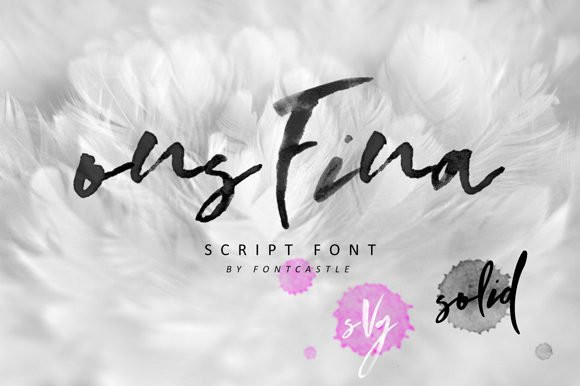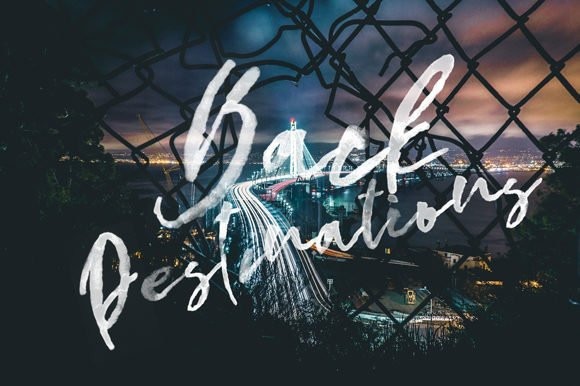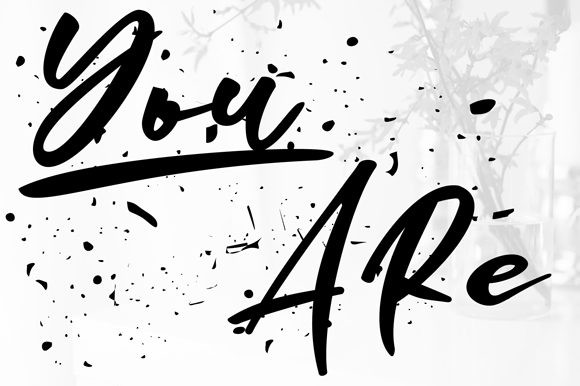
OnsFina Font
OnsFina is a beautiful paint brushed handwritten font. It is very impactful and artsy and it will elevate each of your creations to the highest levels!